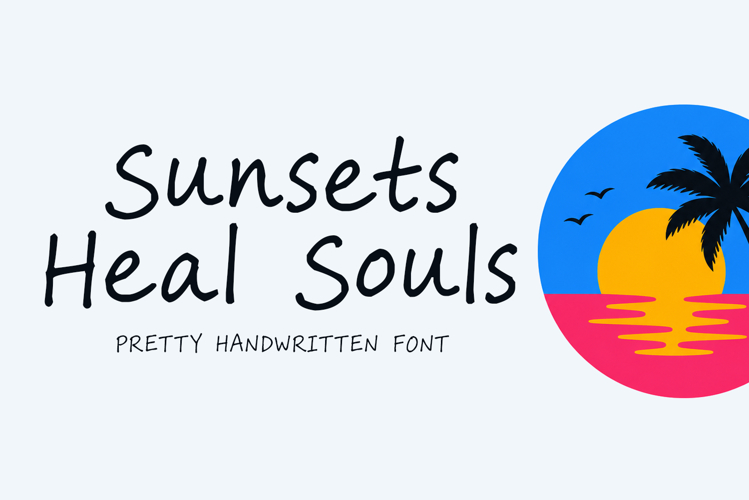
Introducing Sunsets Heal Souls!
Sunsets Heal Souls is a summer-inspired handwritten font filled with warmth, freedom, and tropical energy. Its playful curves and vibrant personality capture the feeling of golden sunsets, ocean breezes, beach adventures, and carefree memories. Perfect for branding, posters, social media, apparel, packaging, and creative projects that need a modern retro summer vibe with emotional, uplifting, and eye-catching aesthetics for youthful audiences worldwide.